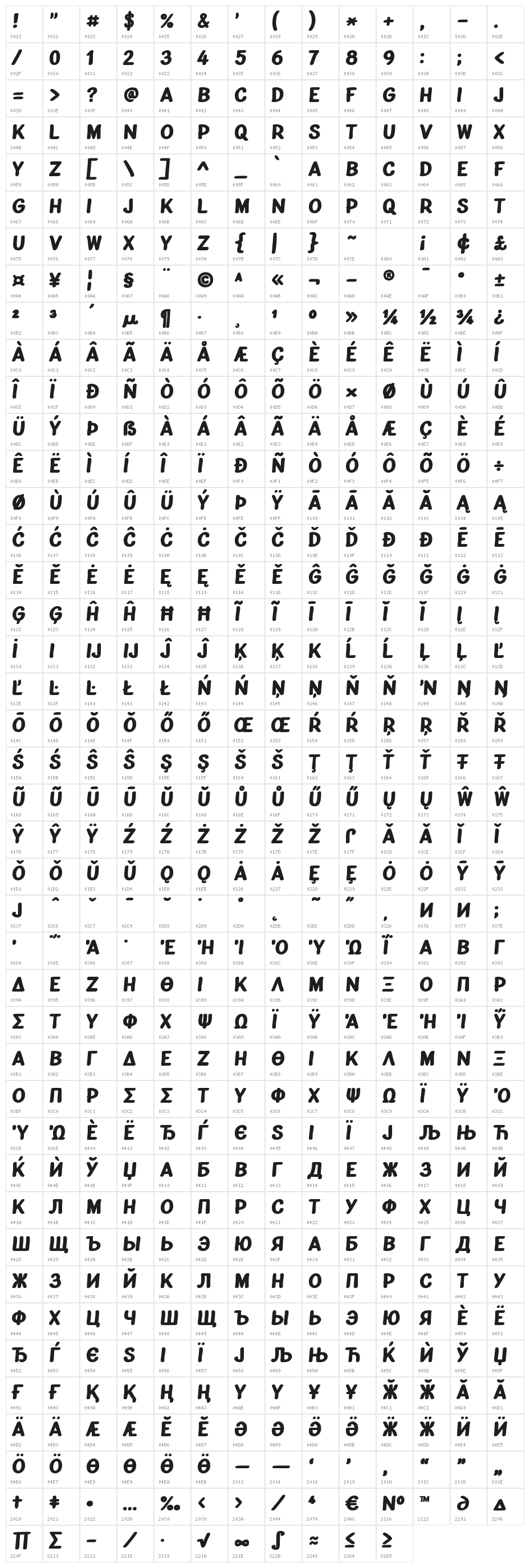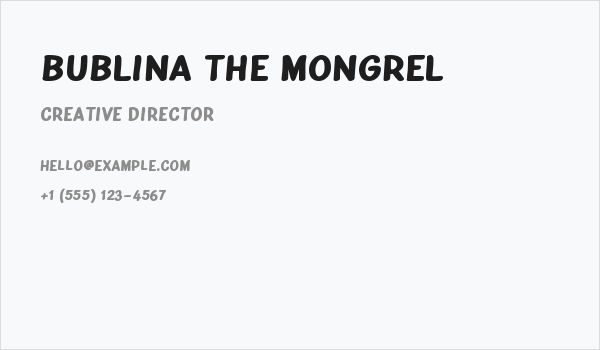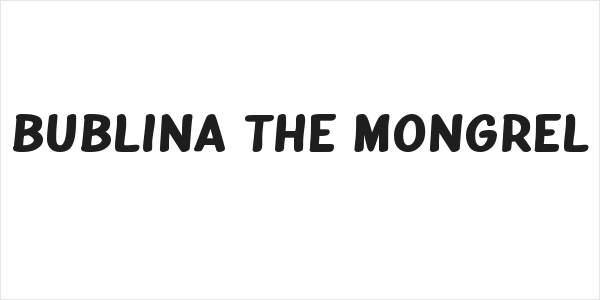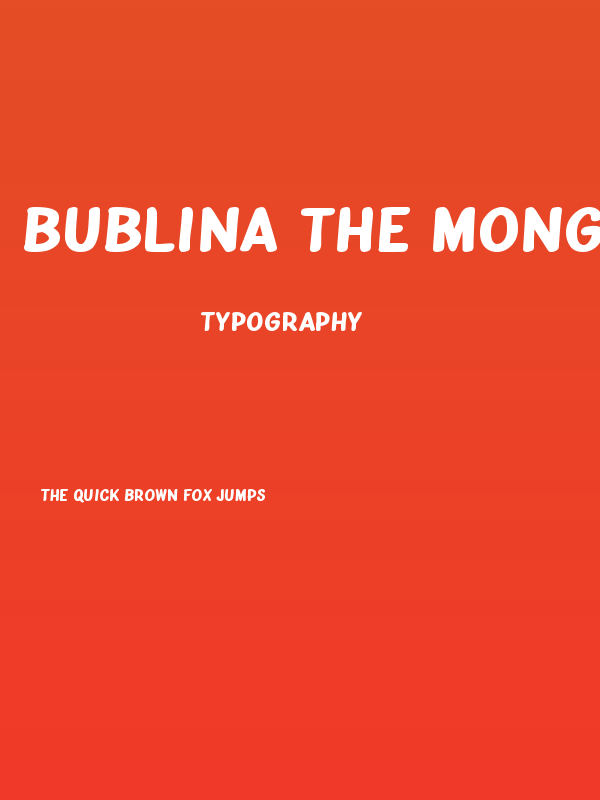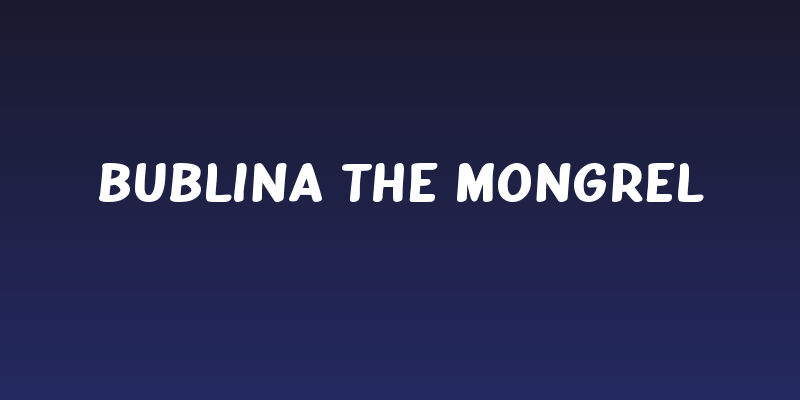
Bublina the Mongrel Font
Bublina the Mongrel Description
This font exhibits a playful and bold style, characterized by its rounded and smooth letterforms. The uppercase and lowercase letters maintain a consistent thickness, contributing to a cohesive and friendly appearance. The numerals and special characters follow the same design principles, ensuring uniformity across all glyphs. The overall aesthetic is approachable and modern, making it suitable for a variety of creative applications. Its boldness and rounded edges give it a distinctive look that stands out, while still being easy to read.
| Proposed Projects | Ideal for children's books, playful branding, posters, and social media graphics. |